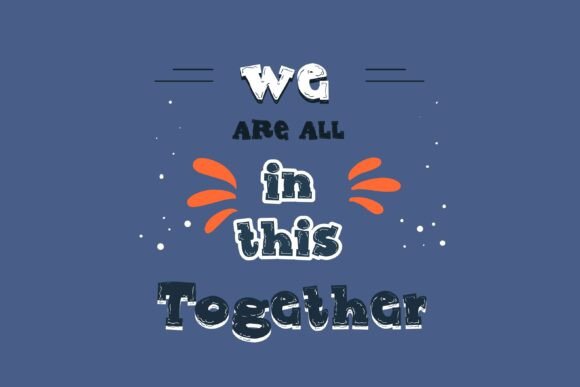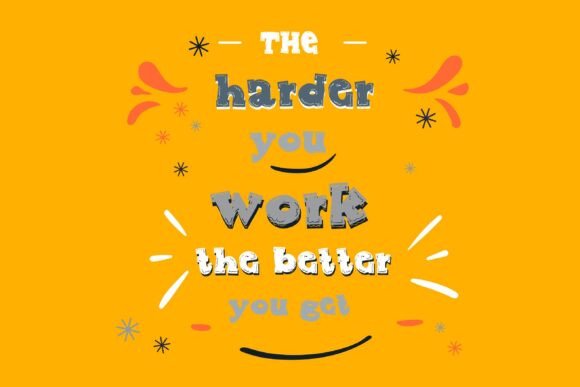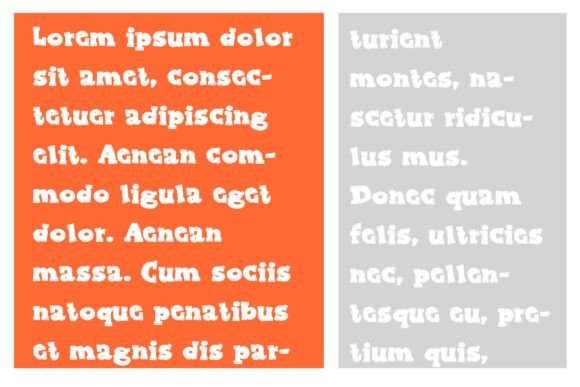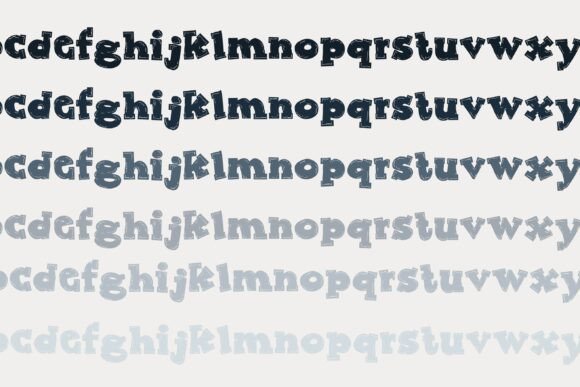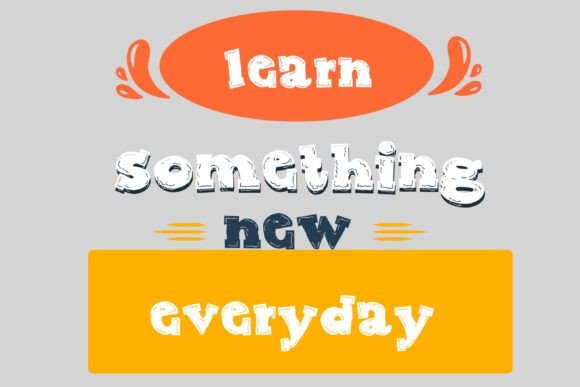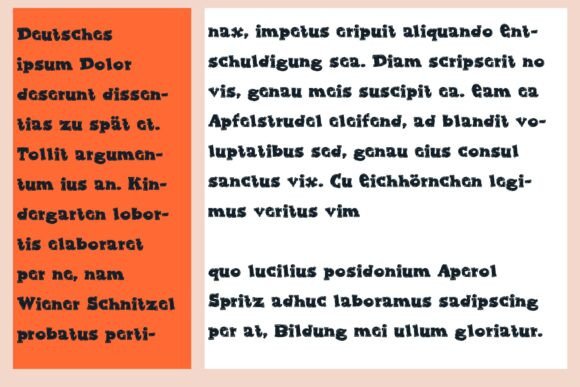
Gidzouka Font: A Whimsical, Hand-Crafted Font for Creative Projects
In the world of typography, hand-crafted fonts have gained immense popularity for their unique and personalized touch. One such font that has caught the attention of designers and crafters is the Gidzouka Font. This whimsical, toggled serif font is a perfect blend of playfulness and elegance, making it an ideal choice for a variety of creative projects.
A hand-crafted font is a font that is designed to look like it was written by hand. It is often used for invitations, greeting cards, and other items that require a personal touch. Handwritten fonts can be either formal or informal, and they can be used for a variety of purposes, including advertising, branding, and packaging.
Characteristics of Gidzouka Font
The Gidzouka Font is a hand-crafted font that boasts a unique and whimsical design. Its toggled serif style gives it a distinctive look that sets it apart from other fonts. The font features lots of fun texture, which adds to its playful and creative vibe. The hand-crafted design of Gidzouka Font makes it look like it was written by hand, giving it a personal and human touch.
Uses of Gidzouka Font
The Gidzouka Font is a versatile font that can be used for a variety of creative projects. Here are some of the ways you can use this font:
- Invitations and Greeting Cards: The Gidzouka Font is perfect for creating invitations and greeting cards for special occasions such as weddings, birthdays, and holidays.
- Branding and Advertising: The font’s unique design makes it an excellent choice for branding and advertising projects, including logos, brochures, and flyers.
- Packaging and Labeling: The Gidzouka Font can be used for packaging and labeling products, adding a personal touch to your products.
- Digital Media: The font can be used for digital media, including social media graphics, blog posts, and website headers.
Benefits of Using Gidzouka Font
Using the Gidzouka Font for your creative projects offers several benefits, including:
- Unique Design: The font’s unique design sets it apart from other fonts, making your projects stand out.
- Personal Touch: The hand-crafted design of the font gives it a personal touch, making your projects look more human and less generic.
- Versatility: The Gidzouka Font is a versatile font that can be used for a variety of creative projects.
- Easy to Read: Despite its whimsical design, the font is easy to read, making it perfect for body text and headlines.
Tips for Using Gidzouka Font
Here are some tips for using the Gidzouka Font effectively:
- Use it Sparingly: Use the font sparingly to avoid overwhelming your design. Use it for headlines or titles, and a simpler font for body text.
- Pair it with Other Fonts: Pair the Gidzouka Font with other fonts to create a unique and visually appealing design.
The Gidzouka Font is a whimsical, hand-crafted font that is perfect for creative projects that require a personal touch. Its unique design, versatility, and ease of use make it an excellent choice for designers and crafters. Whether you’re creating invitations, branding materials, or digital media, the Gidzouka Font is sure to add a touch of personality to your projects.